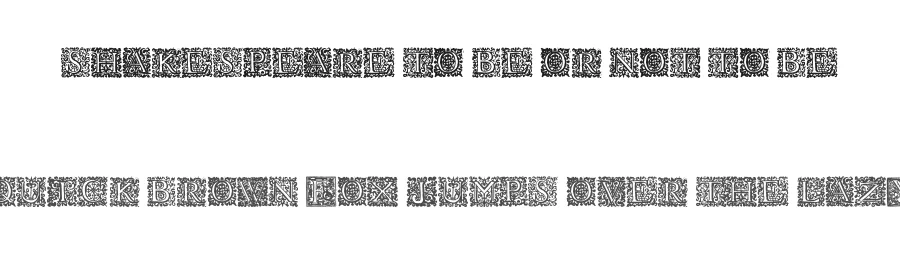
About Gommogravure Font
Gommogravure is a decorative font designed by K-Type. It includes 182 glyphs, a regular weight, TTF (TrueType) format, and 205 languages. Gommogravure is free to download; check the license details on this page before commercial use. Decorative fonts like Gommogravure work best for logos, posters, packaging, and standout headlines.
Gommogravure Font is a decorative font that shines as a display or heading face. Pair it with a clean sans-serif or serif font for body text β the contrast creates a clear hierarchy while the two styles stay balanced and easy to read.
Gommogravure Font
by K-Type
Gommogravure Font is a decorative typeface by K-Type, ideal for logos, invitations, branding, and creative projects.